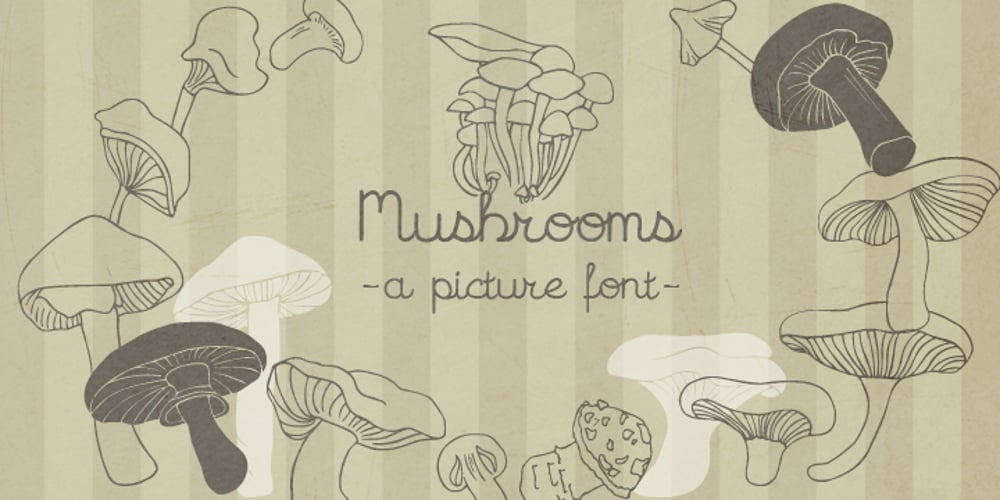
Mushrooms
Mushrooms font
Mushrooms Font Family was designed by Natsuko Hayashida and published by Okaycat. Mushrooms contains 1 styles and family package options. Okaycat JAPAN newly launches “Mushrooms”! Mushrooms is a picture font containing exceptional illustrations of mushrooms. The mushrooms appear in outline form, and also as solid graphics.